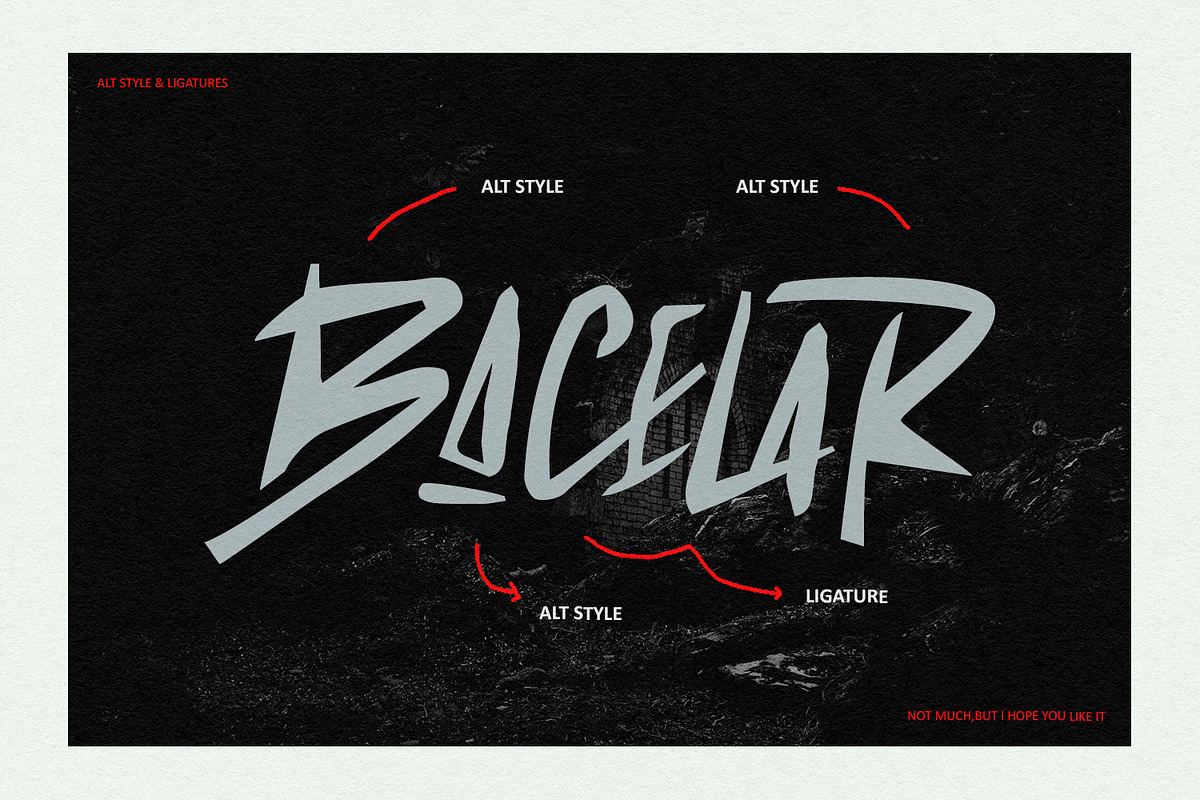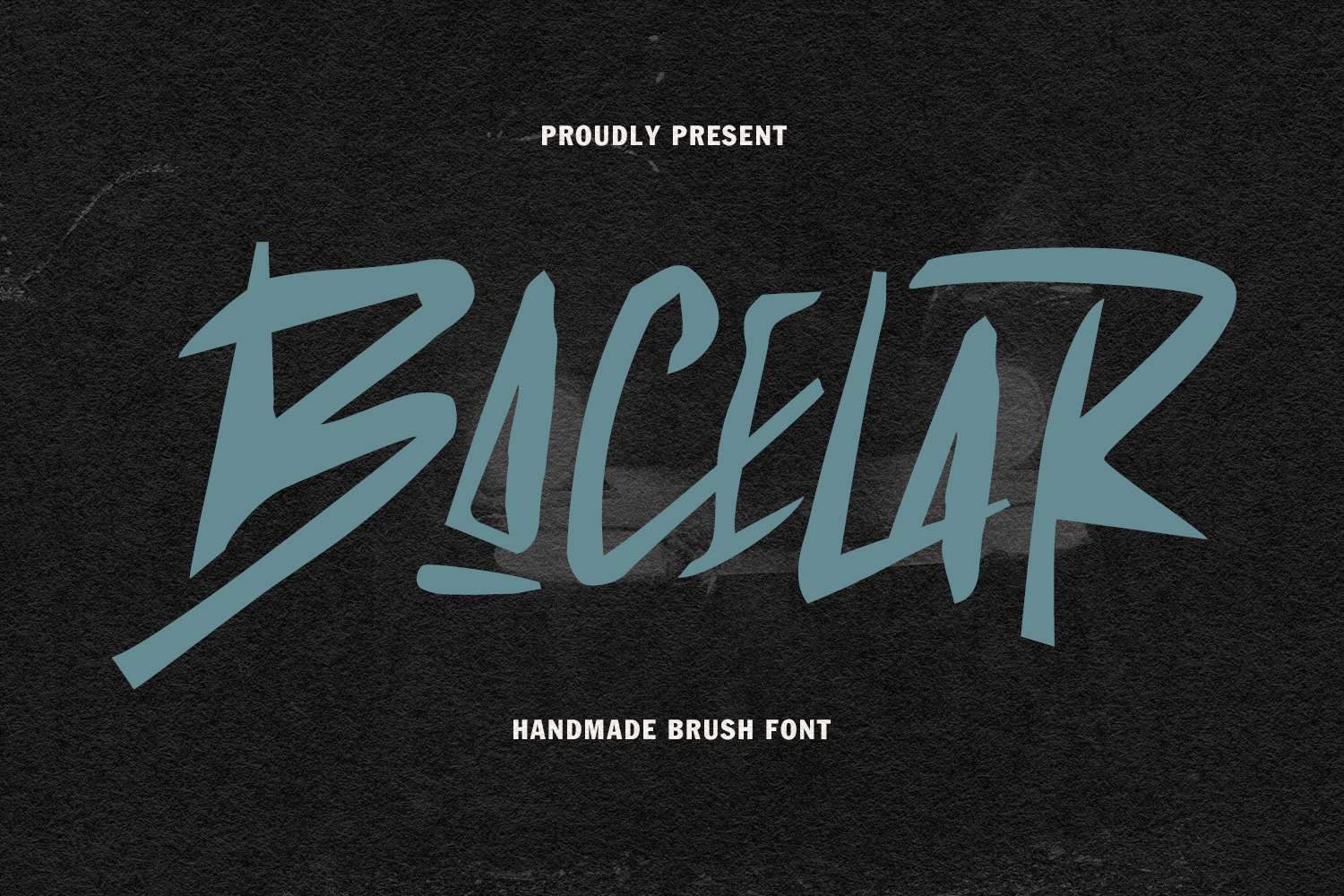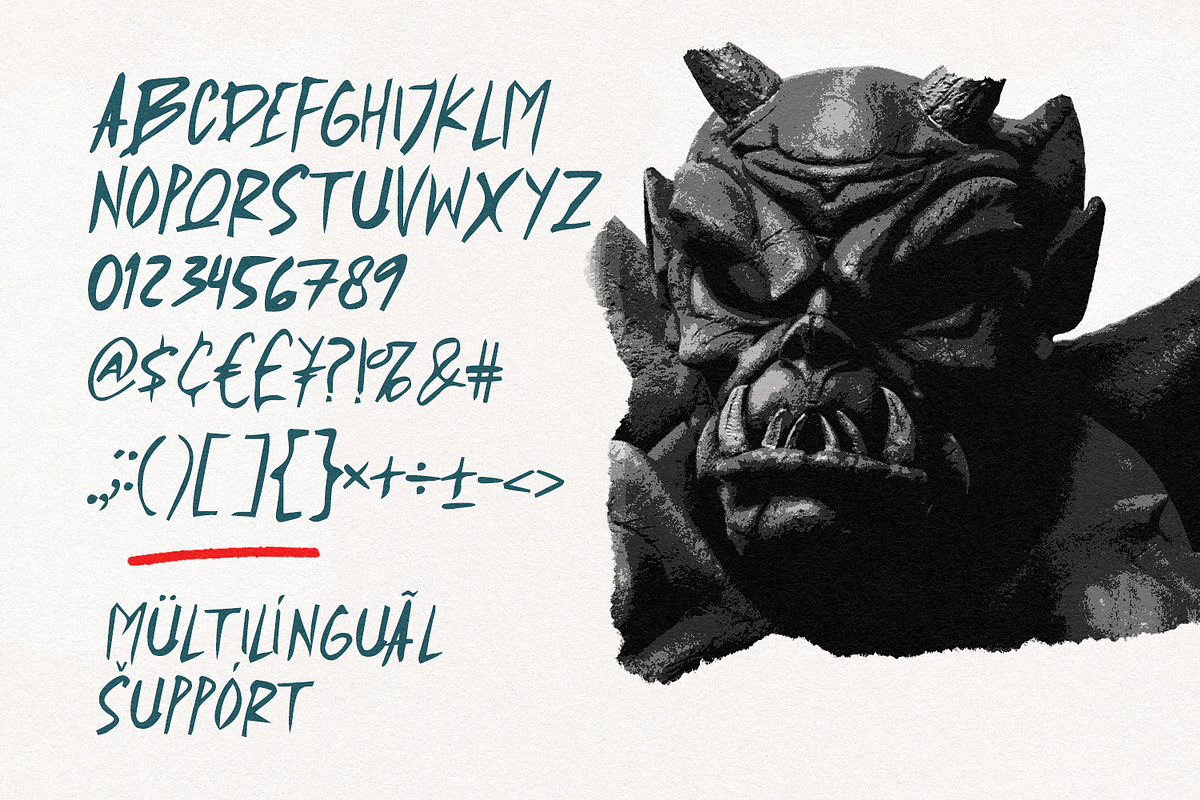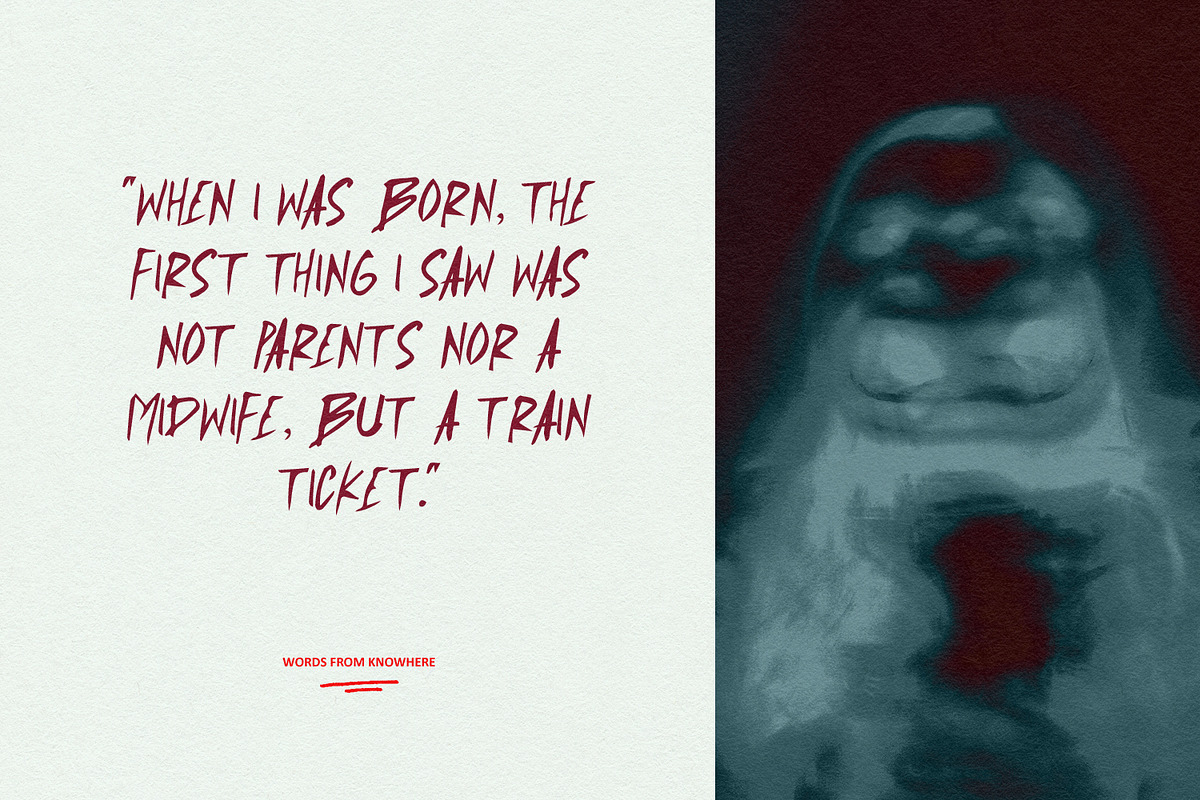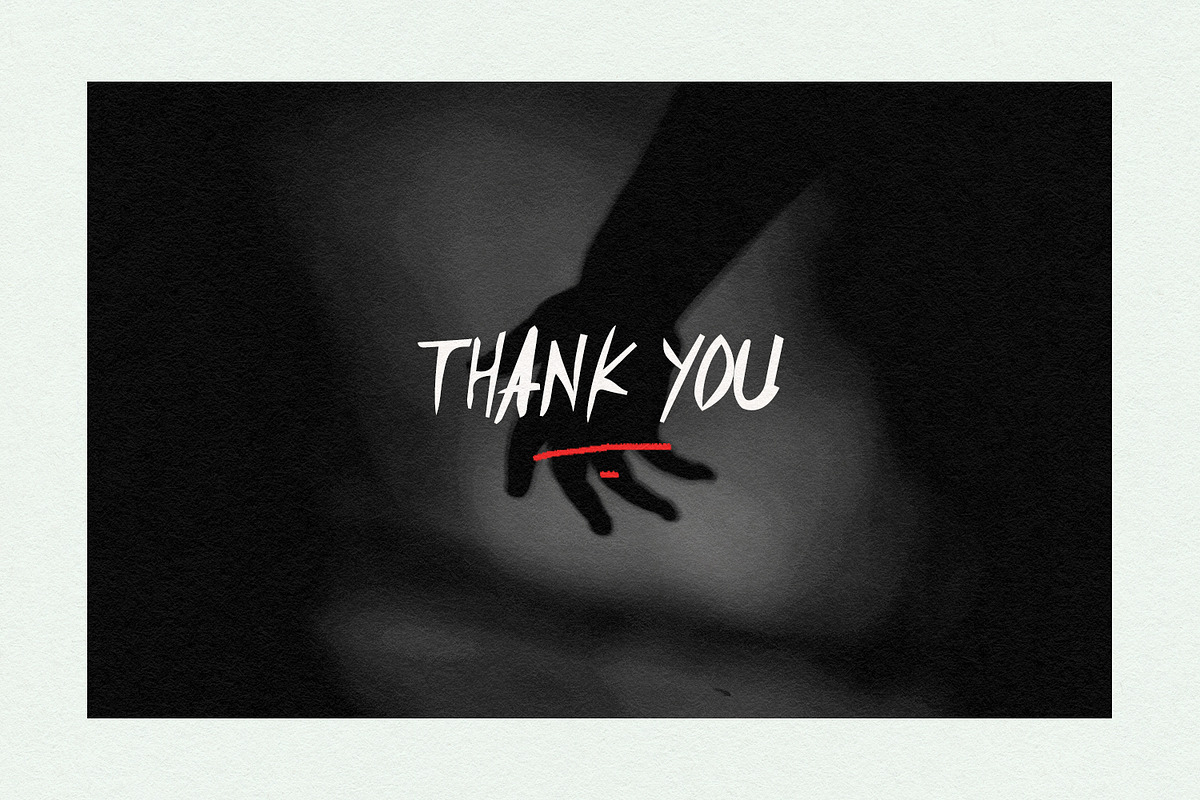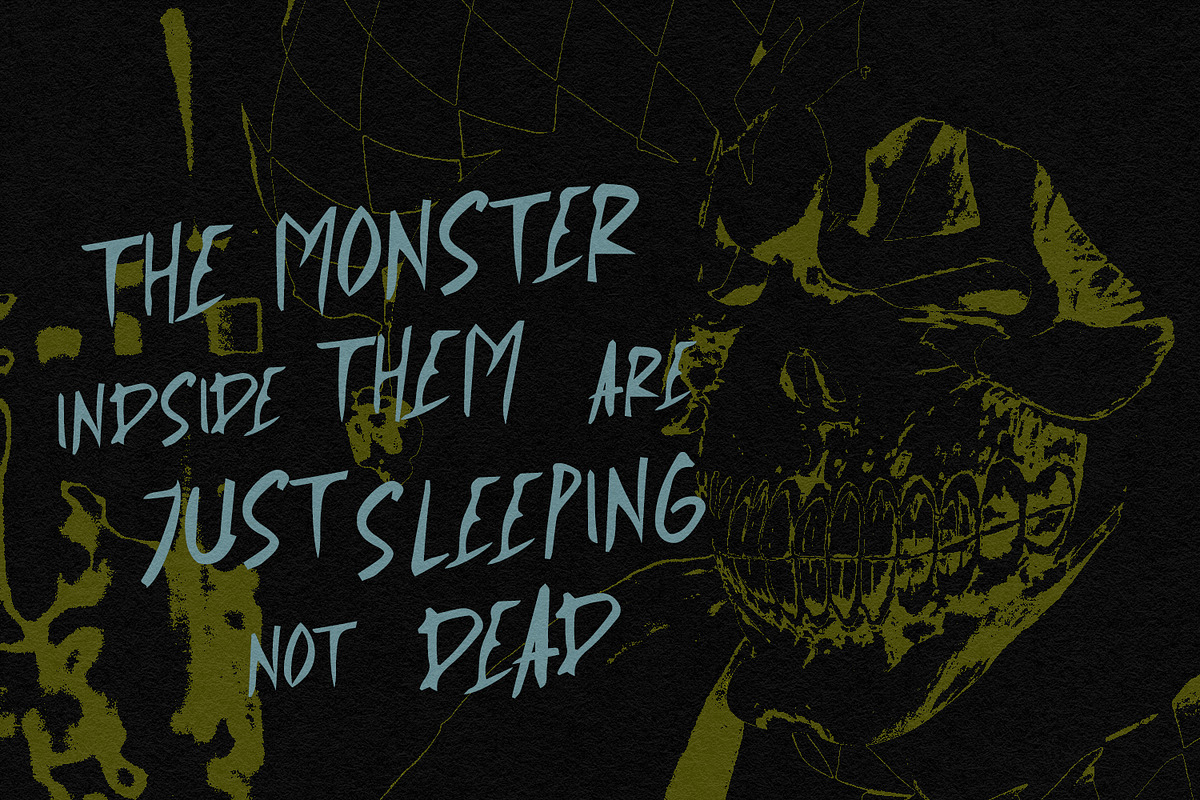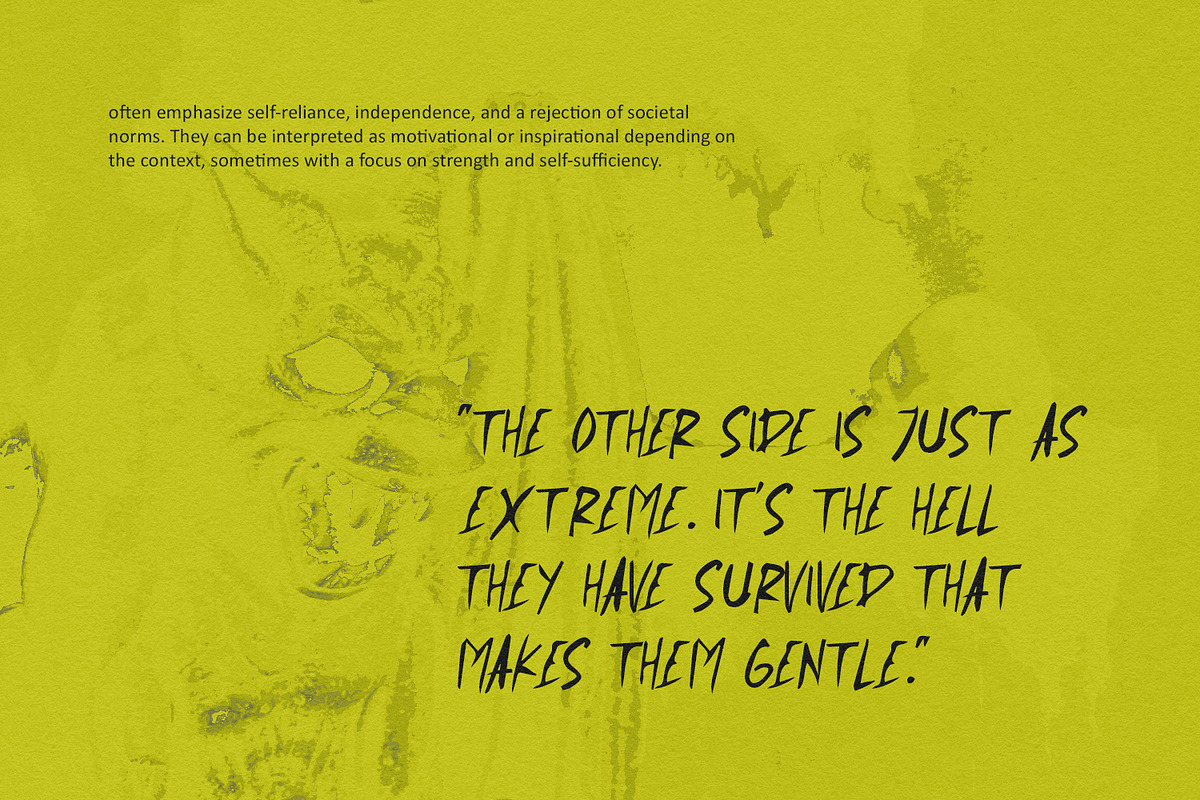
Bacelar Unique Handmade Brush Font
Bacelar is a unique handmade brush font. Fun character with a bit of ligatures and alternates to give you an extra creative work. Bacelar font support multilingual more than 100+ language. This font is good for logo design, Social media, Movie Titles, Books Titles, a short text even a long text letter and good for your secondary text font with sans or serif. Make a stunning work with Bacelar font.